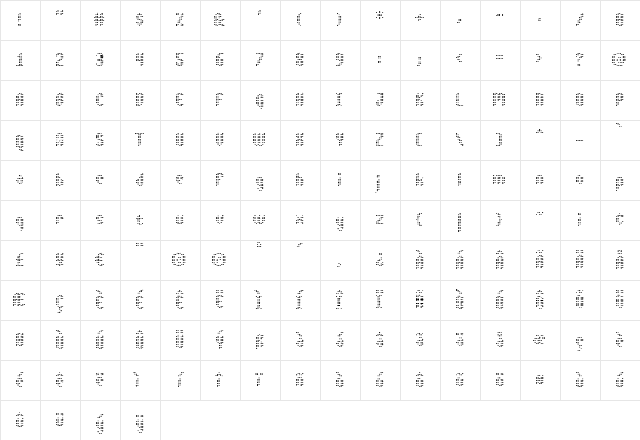
Asterix Blink Regular
Foundry: Fonthead Design Inc.
Designer: Ethan Dunham
Design Context for Asterix Blink
Asterix Blink is a composed and adaptable typeface that performs quietly and consistently across a wide range of design contexts.